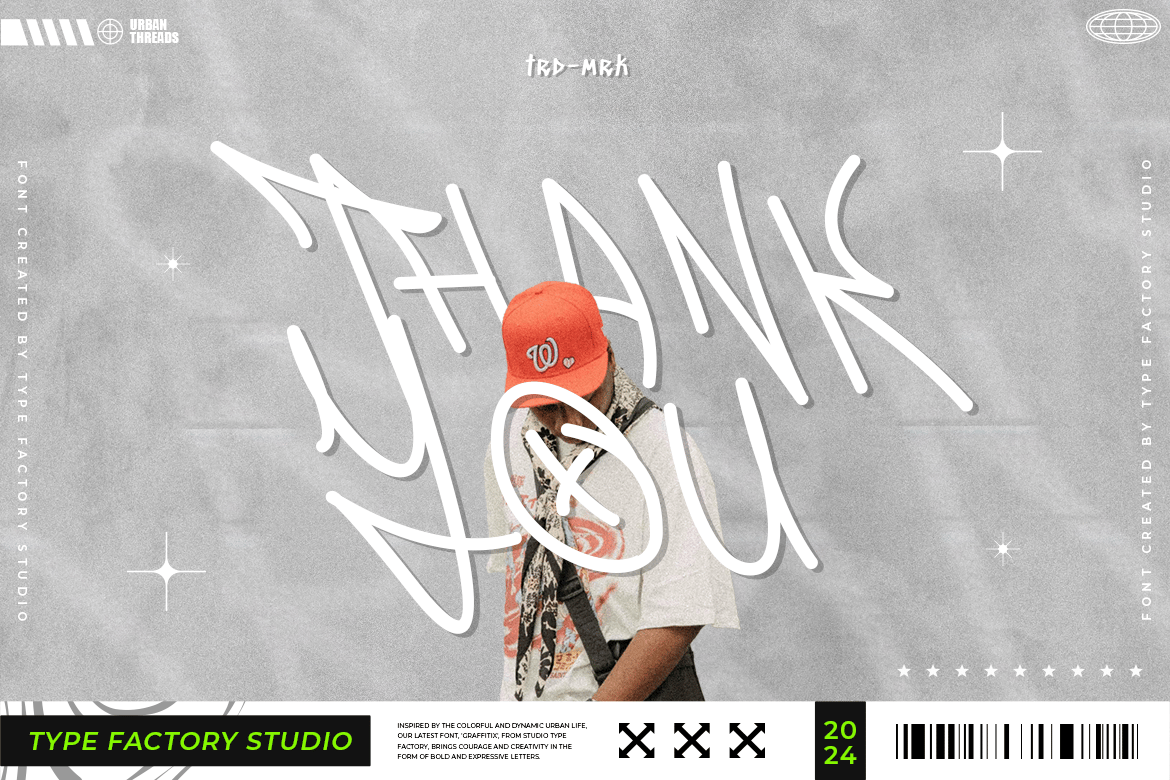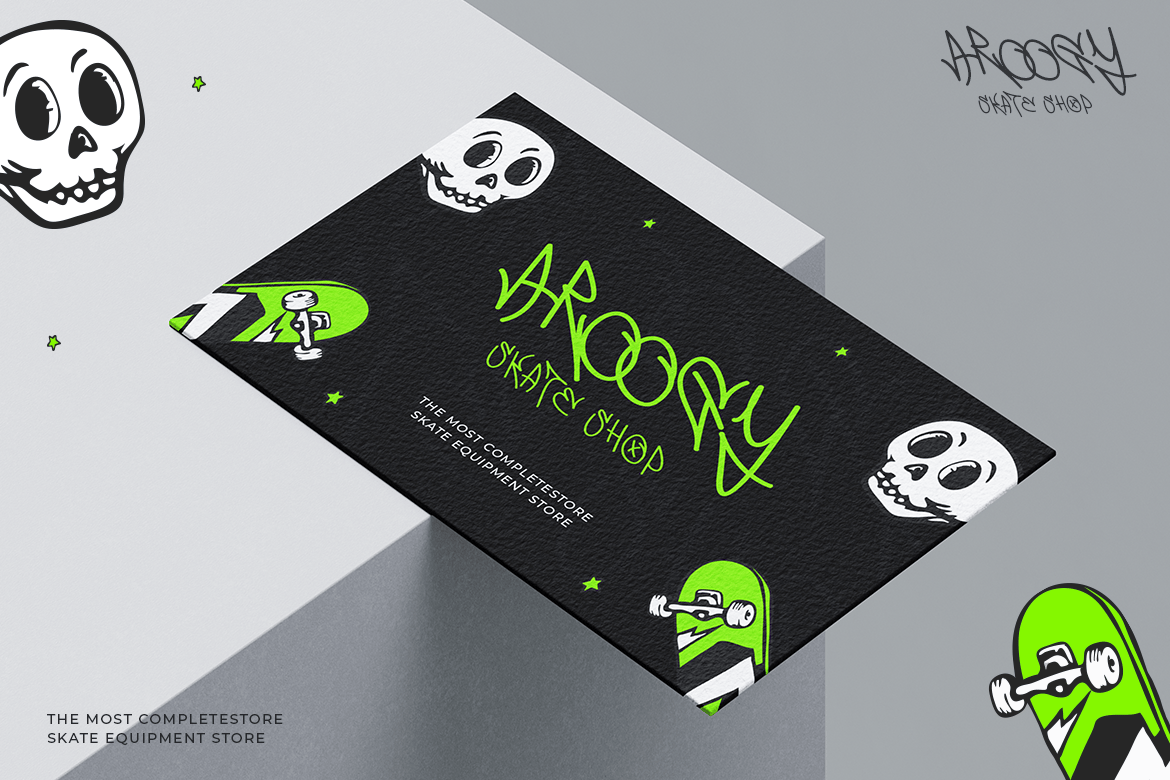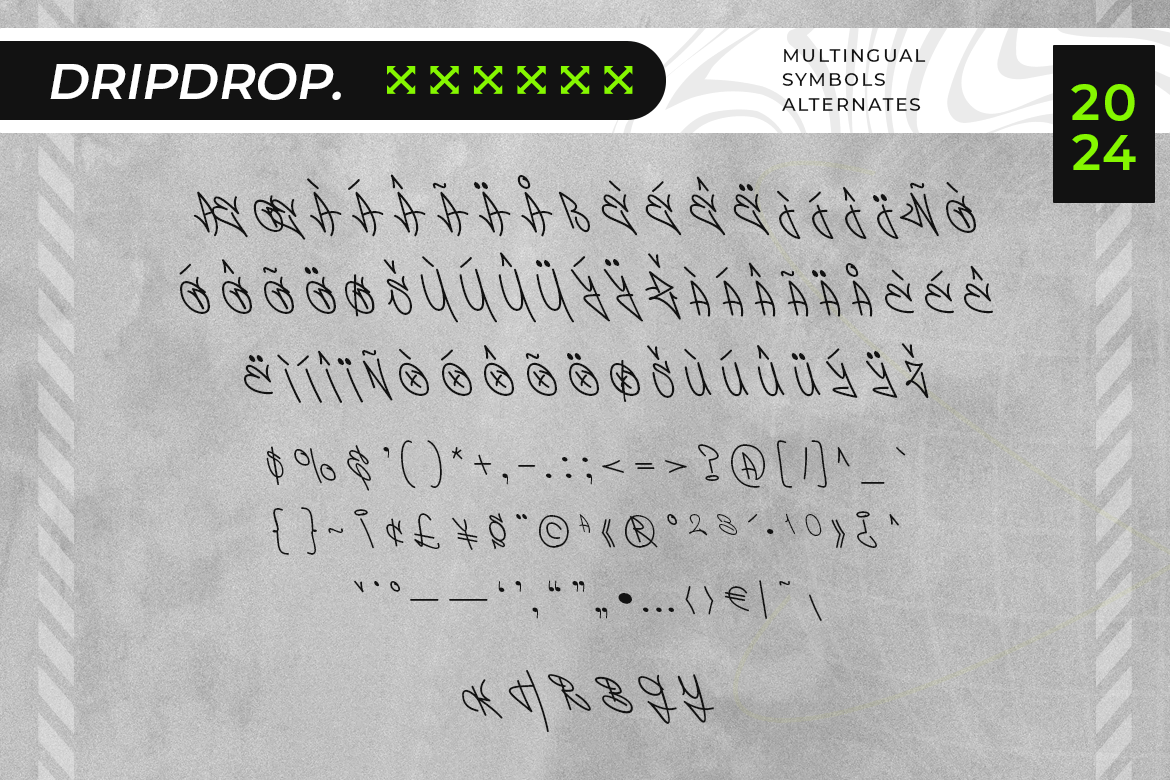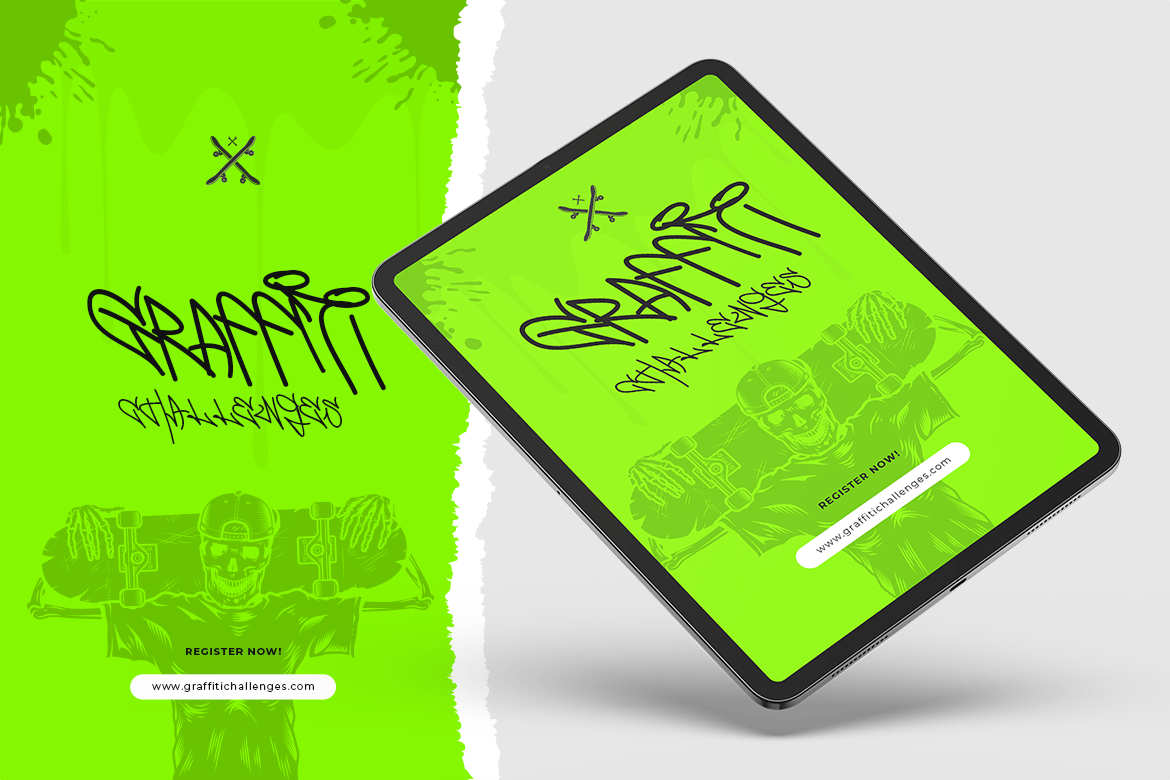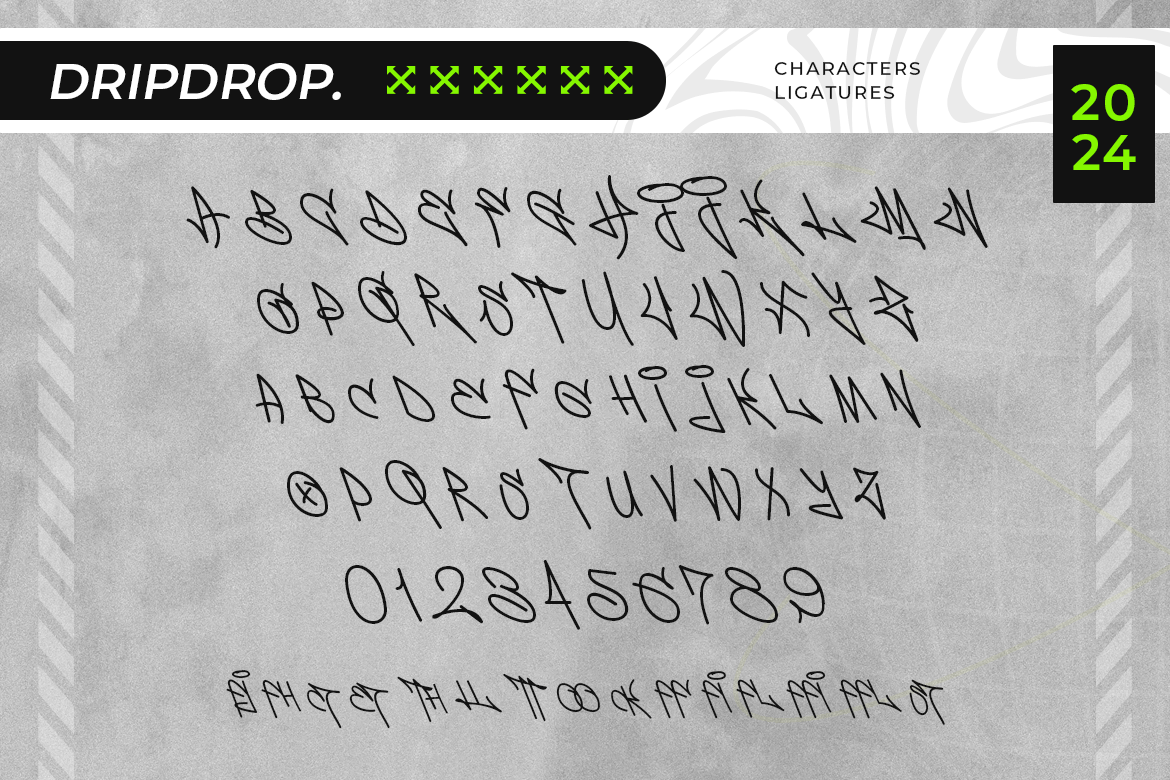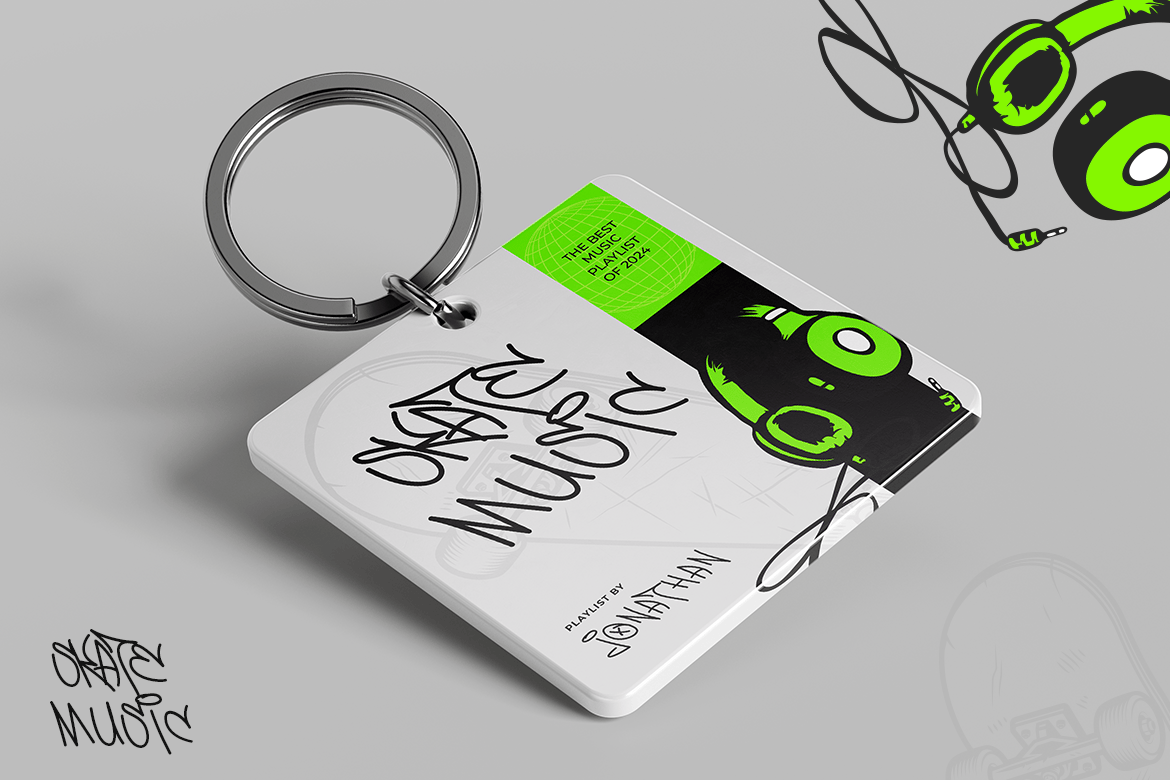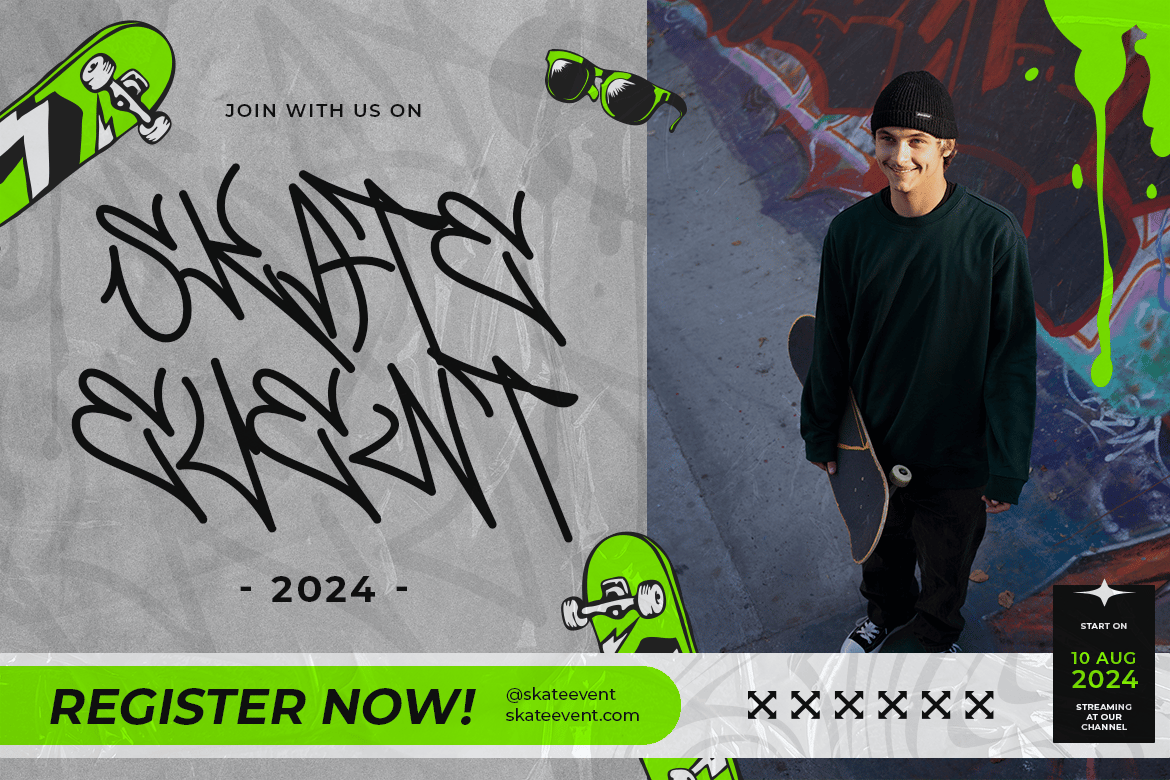
Drip Drop – Graffiti Font
Drip Drop is a bold and expressive graffiti font that captures the raw energy and creativity of urban street art. With its dripping paint effects and dynamic letterforms, Drip Drop is perfect for projects that need a rebellious and edgy vibe. Ideal for posters, album covers, streetwear branding, and event flyers, this typeface brings a sense of authenticity and street culture to your designs. Drip Drop’s unique style makes it a standout choice for those looking to make a powerful statement with their typography.